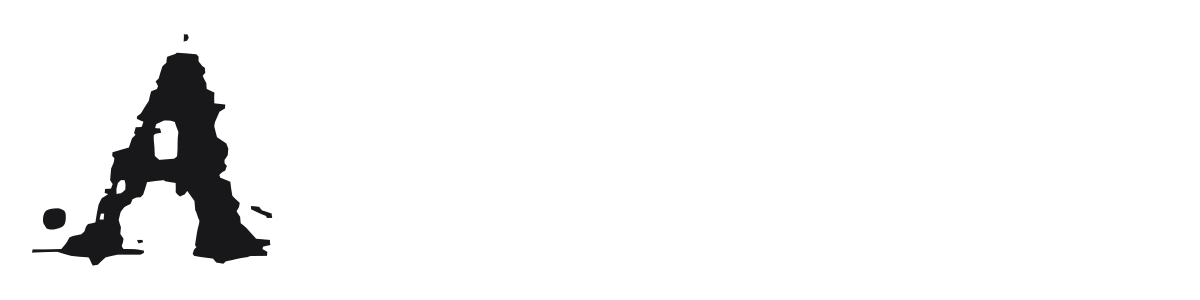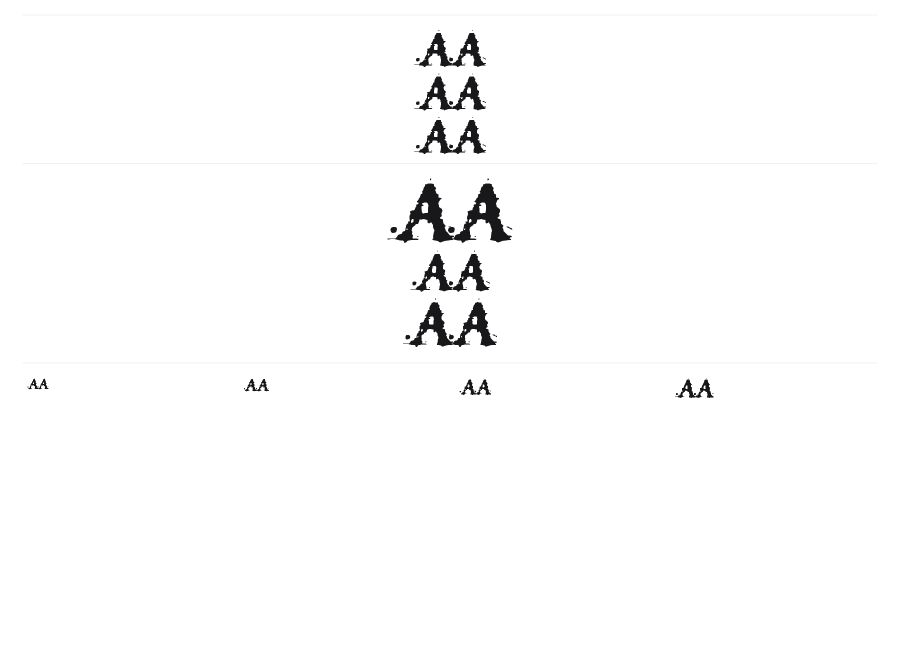
Petrra fam
Petrra fam is a heavily eroded display serif that looks like it was carved from stone and left to weather for centuries. The thick, chunky base structure is overwhelmed by aggressive ink-bleed, crumbling edges, and missing material that gives each character a raw, almost violent texture. It suits contexts where distress is the message: gig posters, horror titles, underground branding.